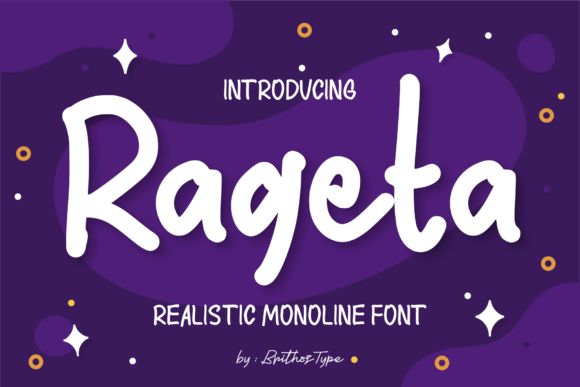
Introducing Rageta Font: Discover a Whimsical Touch for Your Creative Endeavors
Step into a world of enchantment with Rageta Font, a captivating script font that exudes a playful, paint-brushed charm. Inspired by the freedom of childhood and the joy of self-expression, Rageta's relaxed theme brings a touch of whimsy to any project it graces.
Crafted by the talented brithostype, Rageta Font is a masterful blend of elegance and fun. Its unique style, characterized by graceful strokes and an easy-going flow, makes it an exceptional choice for a wide range of creative endeavors. Whether you're designing invitations for a special occasion, creating eye-catching social media posts, or adding a touch of whimsy to your branding, Rageta Font is your perfect companion.
Elevate Your Creations with Rageta's Enchanting Appeal
With Rageta Font as your ally, you can effortlessly elevate your creative projects to new heights. Its enchanting nature lends itself beautifully to children's stories, bringing characters and scenes to life with an unforgettable charm. Let Rageta's playful spirit add a touch of magic to your designs, capturing the imagination of young and old alike.
Harnessing Rageta's Versatility for Endless Possibilities
Unlock the boundless versatility of Rageta Font and open the door to endless creative possibilities. Whether you're a seasoned designer or just starting your journey, Rageta's intuitive nature makes it easy to incorporate into your projects. Let its whimsical strokes bring a smile to your audience's faces as you create logos, posters, greeting cards, and more.
Join the Creative Revolution with Rageta Font
Take your creativity to new realms with Rageta Font. Its captivating style and limitless applications make it a must-have in your font collection. As a designer, you'll appreciate the ease with which Rageta blends with other fonts, creating harmonious visual compositions that leave a lasting impression. Experience the joy of crafting designs that overflow with personality and charm.
Embrace the Adventure of Artistic Expression with Rageta Font
The journey of artistic expression awaits you with Rageta Font as your trusted companion. Its whimsical spirit and versatile nature inspire you to push the boundaries of your creativity, exploring new and exciting possibilities. Allow Rageta's enchantment to ignite your imagination and embark on an adventure where your artistic vision shines brighter than ever before.